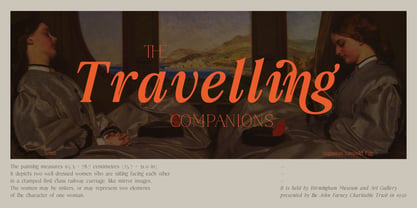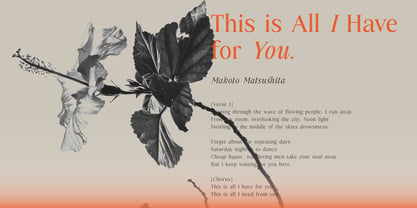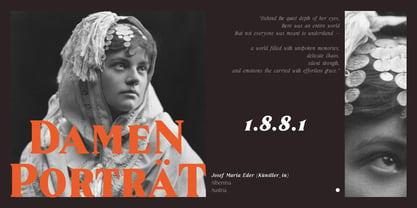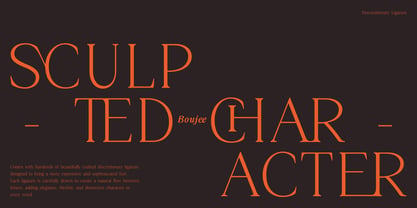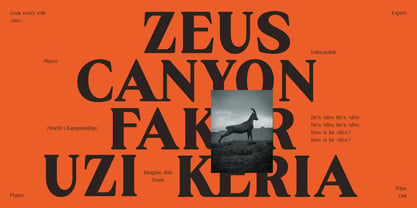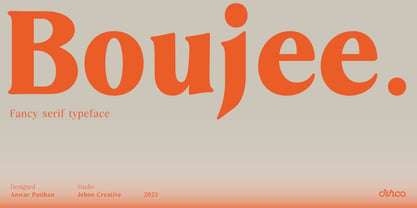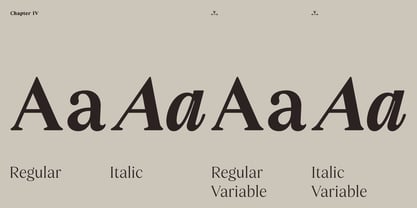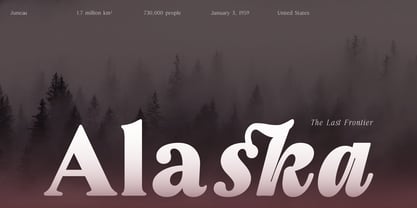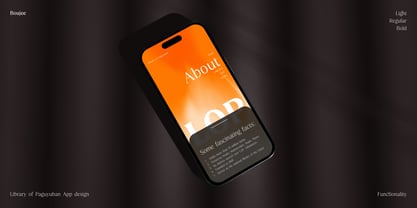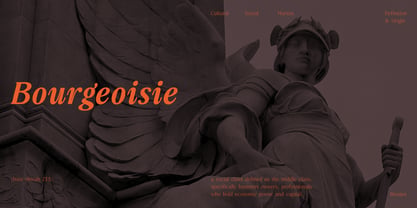
Boujee
by Jehoo Creative
The Boujee Font Family was designed by Anwar Patihan and published by Jehoo Creative. Boujee contains 20 styles and family package options. More about this family
Introducing Boujee a fancy serif typeface inspired by old Typography elegance, vintage editorials, and timeless luxury aesthetics. Designed with rich contrast and graceful details, Boujee brings a refined personality that feels both nostalgic and sophisticated. comes with a beautifully crafted true italic, hundreds of stunning Discretionary Ligatures, complete Small Caps and Caps to Small Caps features, along with multilingual support including Cyrillic and Greek characters. Every detail is carefully built to give designers more expressive and luxurious typographic possibilities while maintaining a polished and premium feel.
Perfect for branding, fashion, packaging, logos, magazines, and cinematic typography, this typeface delivers a classy presence with a strong visual identity.